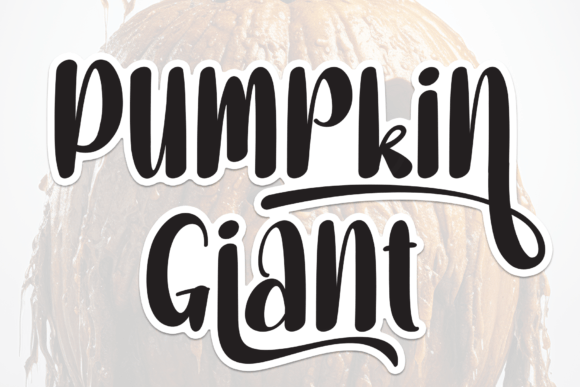
Introducing Pumpkin Giant Font – The Heartwarming Script for Christmas Magic!
Dive into the enchanting world of Pumpkin Giant Font, a delightful handwritten display font that exudes warmth and cheer. With its playful curves and charming characters, Pumpkin Giant is the perfect font for spreading Christmas joy and creating heartfelt designs that capture the magic of the season.
Imagine your Christmas cards, invitations, and holiday greetings adorned with Pumpkin Giant's whimsical charm. Its friendly and inviting style will instantly set the tone for a merry and memorable celebration. Whether you're a professional designer or a creative enthusiast, Pumpkin Giant is the perfect tool to bring your Christmas designs to life.
Unleash your creativity and explore the endless possibilities of Pumpkin Giant. Its versatility extends beyond Christmas, making it a wonderful choice for wedding invitations, cards, logos, branding, and any project that calls for a touch of whimsy and charm.
So why settle for ordinary fonts when you can have Pumpkin Giant? Its unique and eye-catching style will make your designs stand out from the crowd and leave a lasting impression on your audience. Don't miss this chance to add a spark of magic to your creative projects. Download Pumpkin Giant Font today and embark on a delightful journey of design and inspiration.